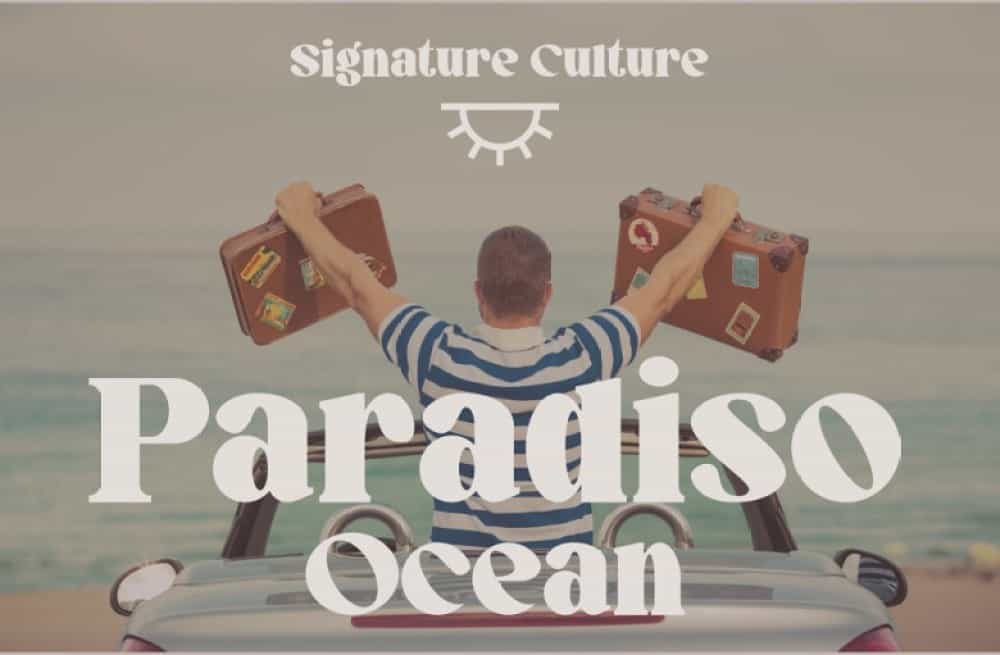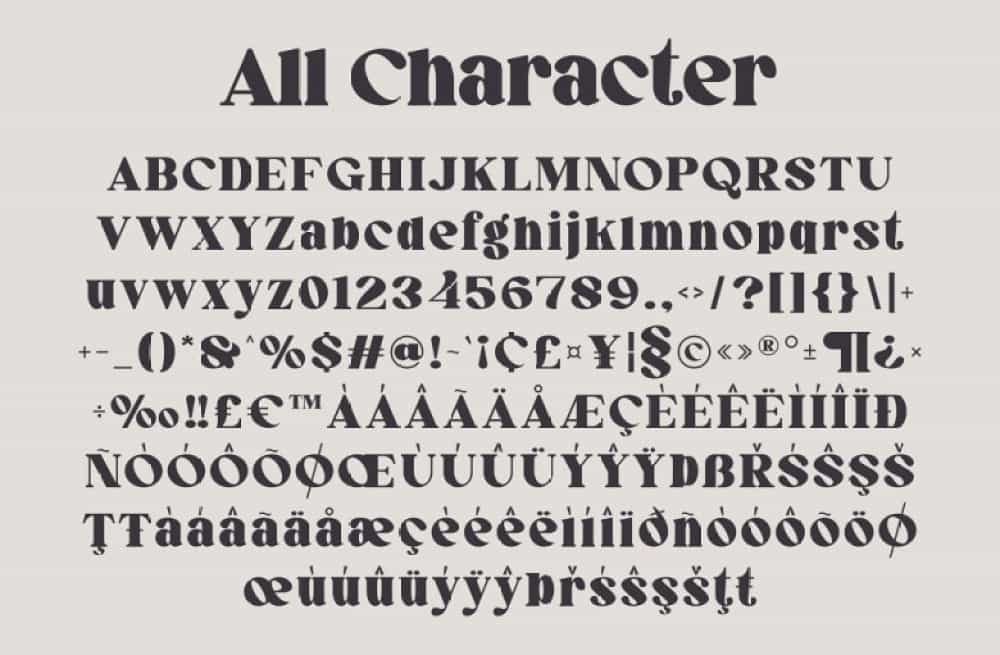
Agior is a decorative typeface in the display category of serif font. You can use it for any forms of design especially for creating a sophisticated style in your designs like in invitations, logos, and branding. The font has no sharp edges and is more on the sleek side which in turn gives it a classic and professional look.